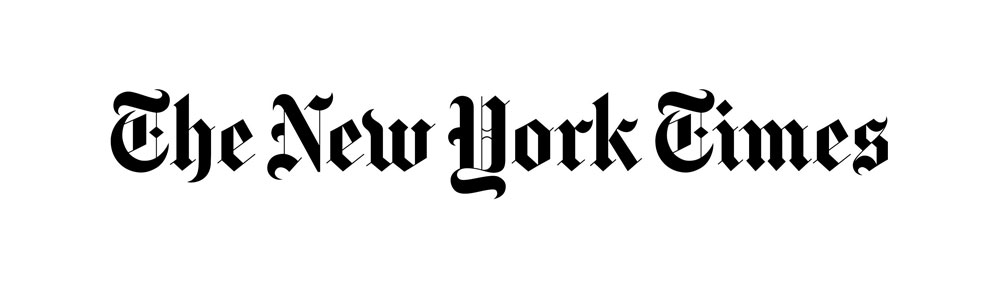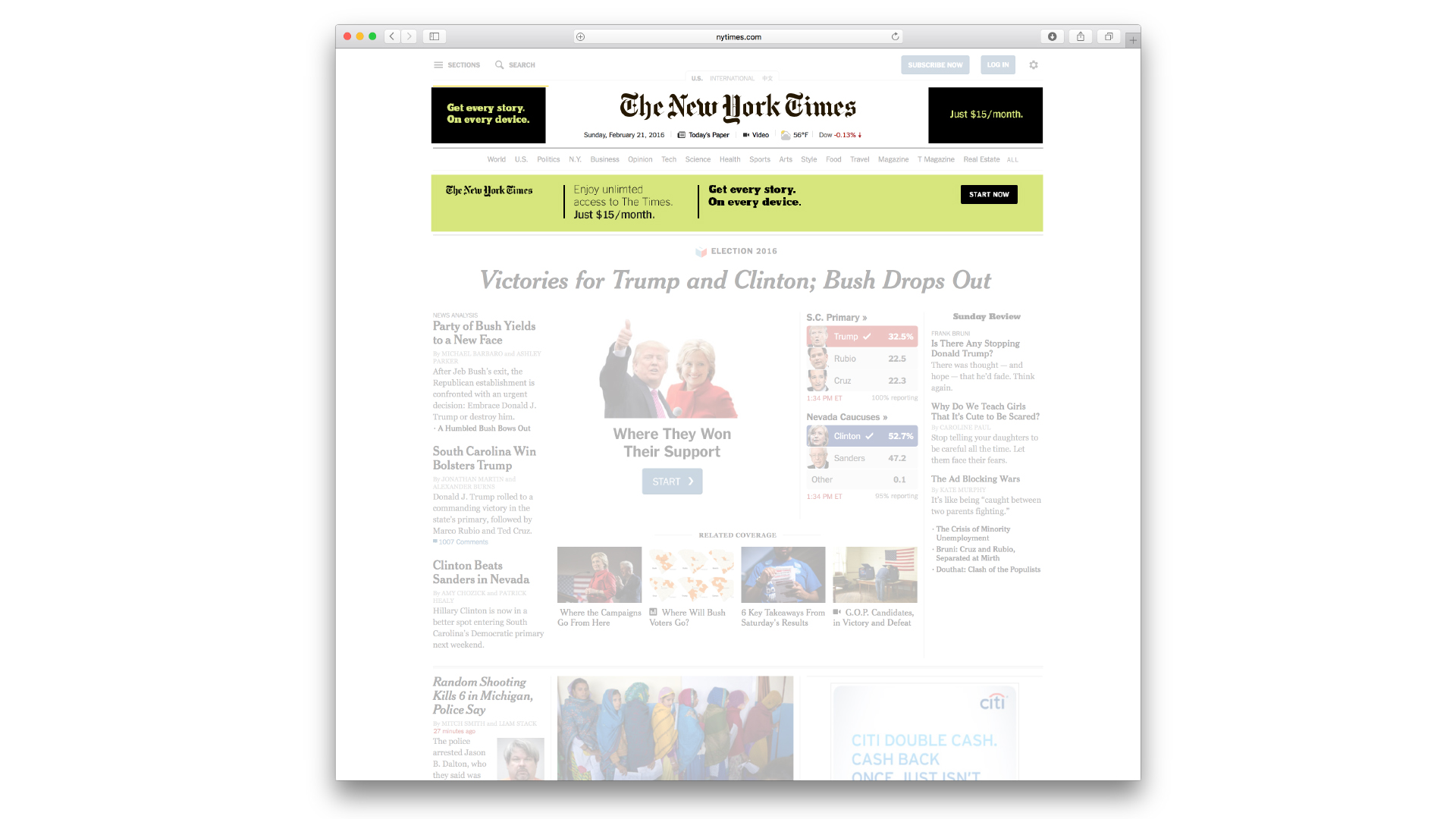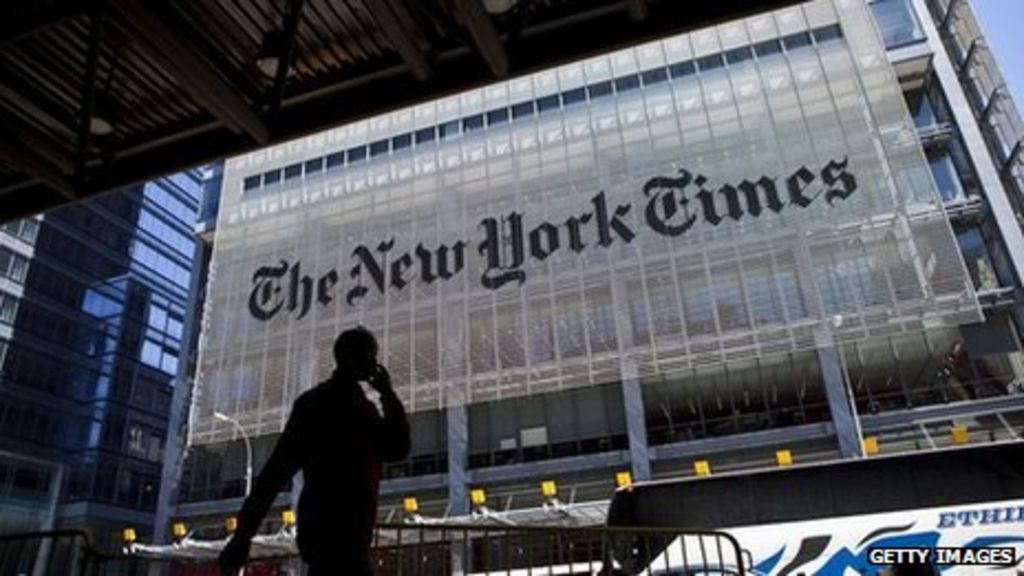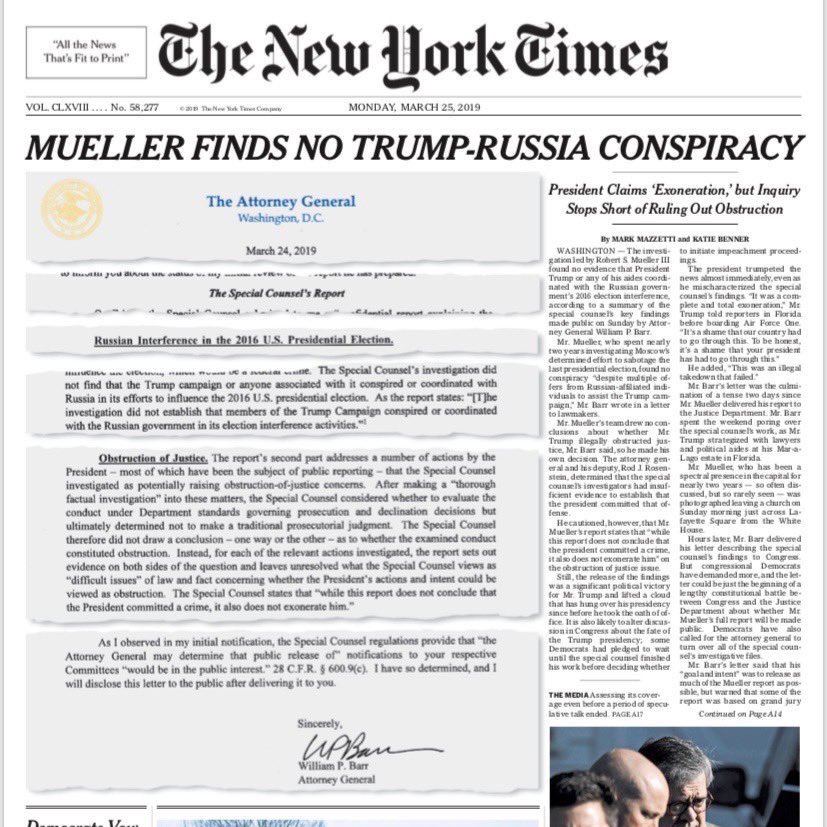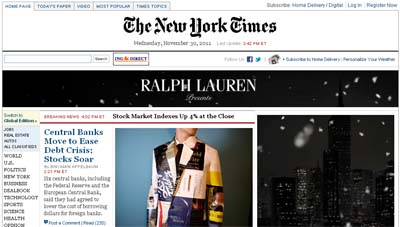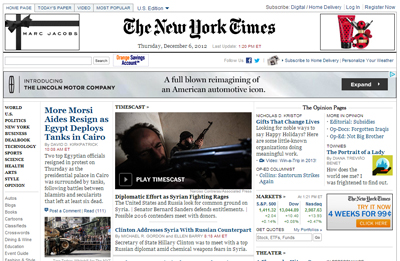
New york times banner font.
Designed by morris fuller benton in 1907.
The new york times.
An improved version of the familiar nineteenth century blackletter as he had executed it in his wedding text.
Just make sure that when you use olde english to make the ny times logo have it bold.
What font does new york times use.
The closest font you can get for the new york times logo is engravers old english bt font.